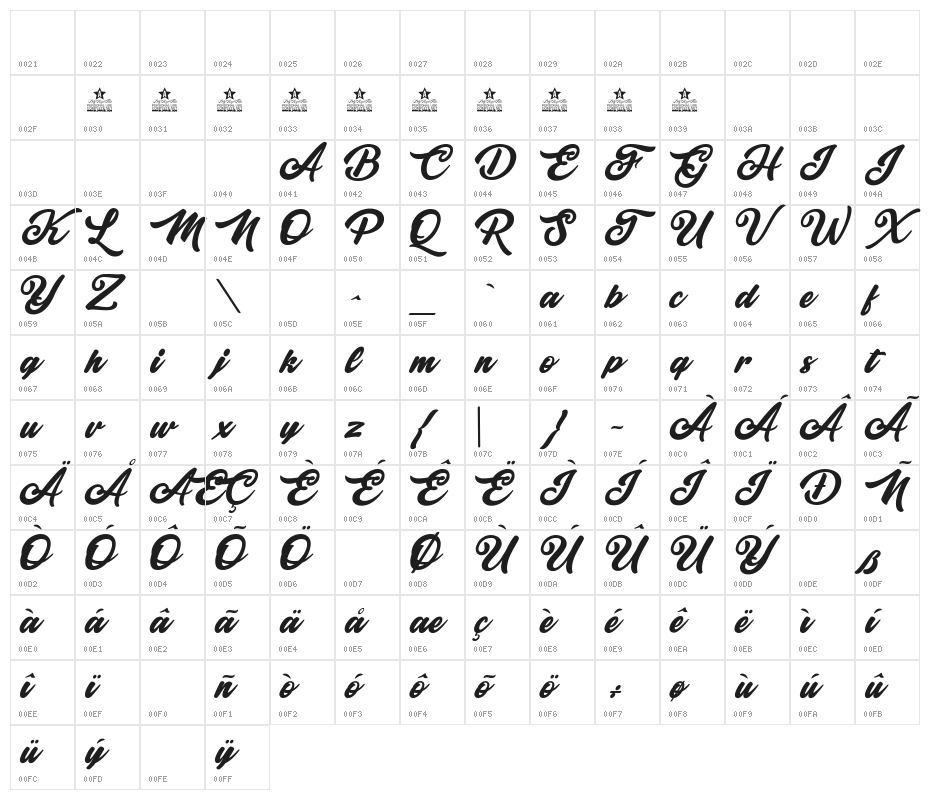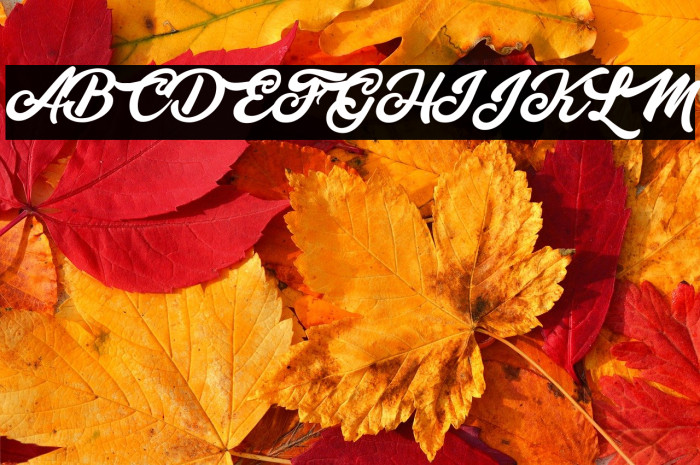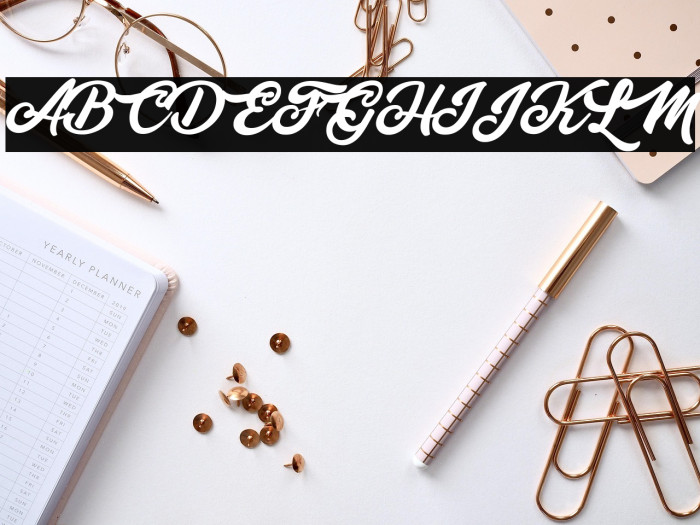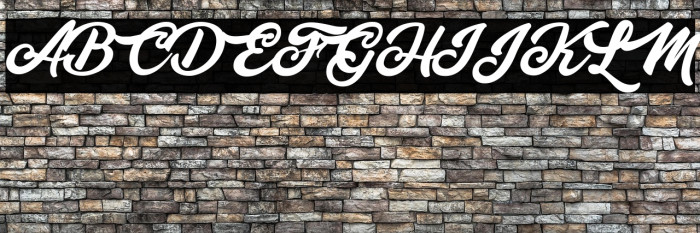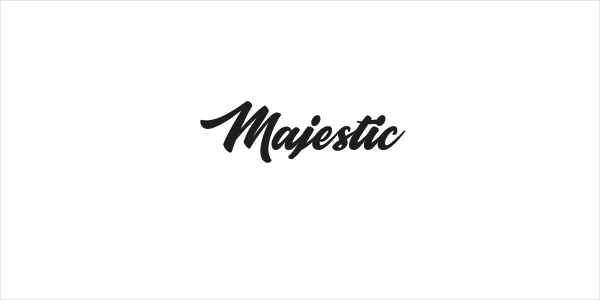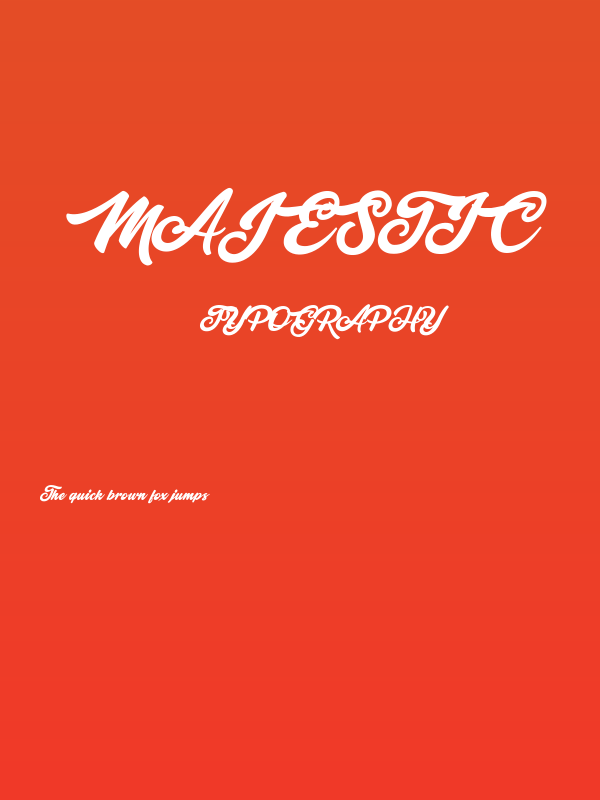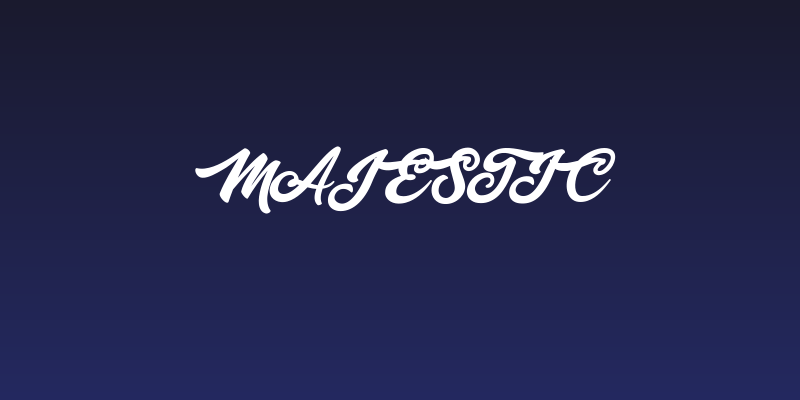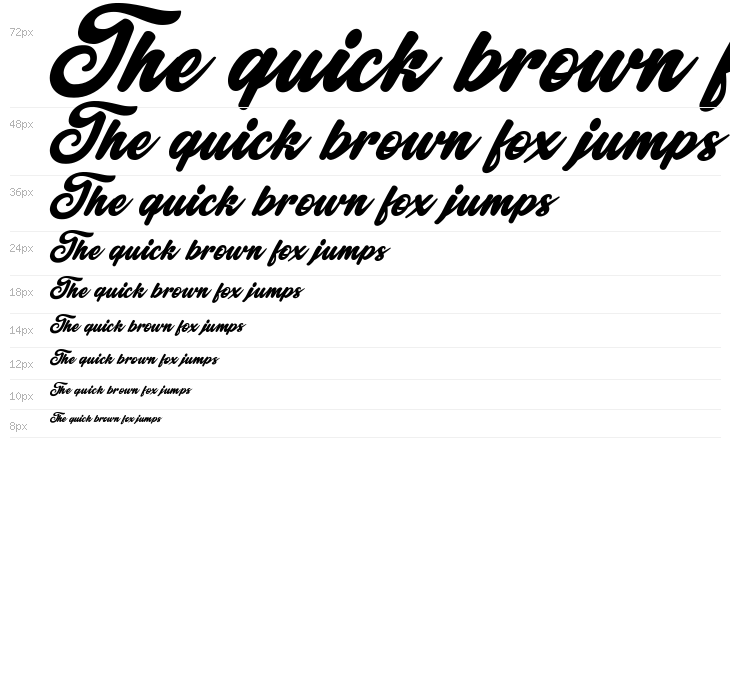
Majestic Font
Majestic Description
This font exudes a sense of elegance and fluidity, characterized by its cursive script style. The uppercase letters are intricately designed with smooth, flowing lines that connect seamlessly, creating a harmonious and sophisticated appearance. The lowercase letters maintain this fluidity, with a bold and confident stroke that enhances readability while retaining an artistic flair. The numbers and special characters are crafted with the same attention to detail, ensuring consistency across all glyphs. This font is perfect for projects that require a touch of elegance and style, such as invitations, branding, and decorative text.